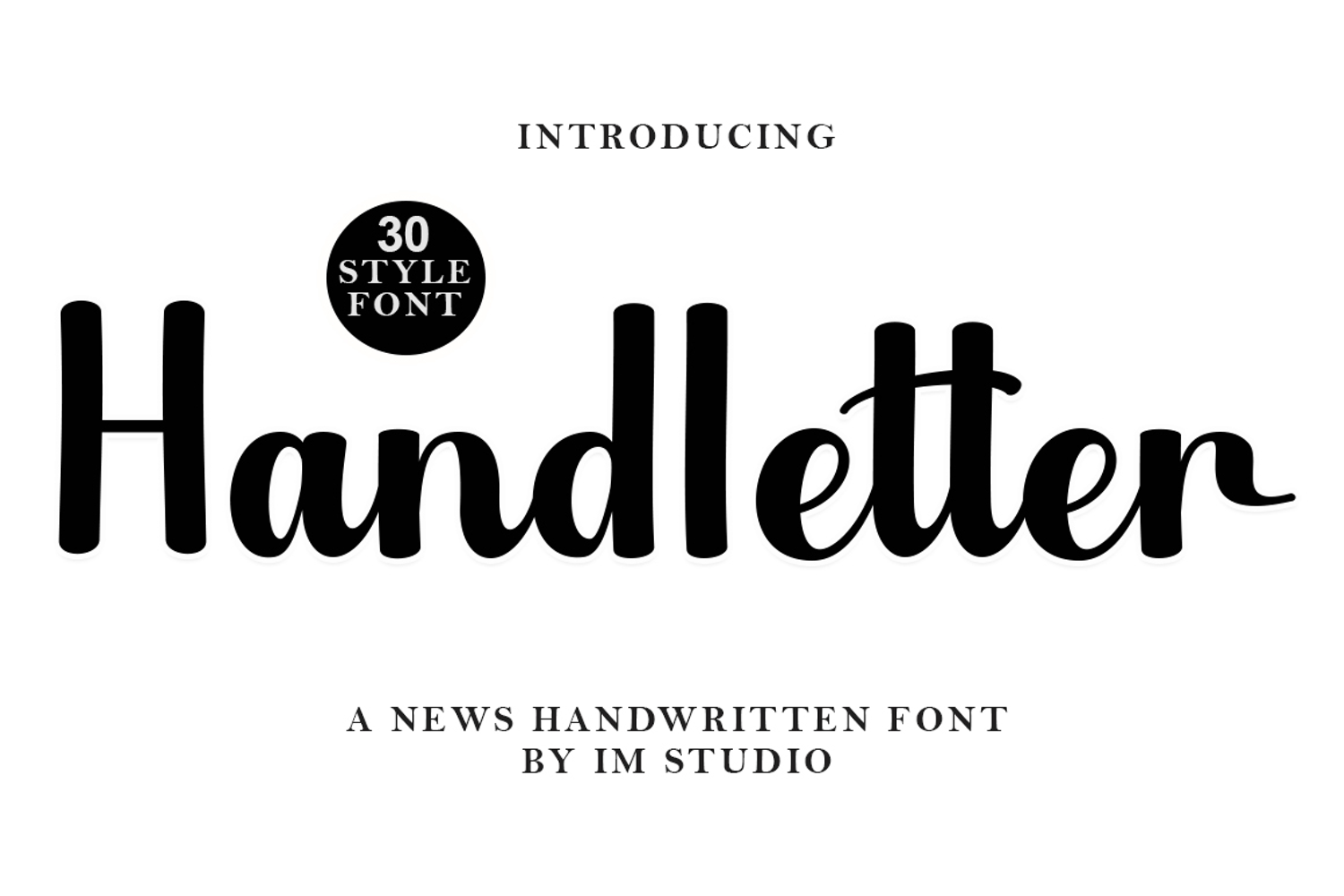
Handletter - Family In 30 Styles
Handletter appeals because it is sleek, clean, feminine, sensual, glamorous, simple, and very easy to read, thanks to the many beautiful letter connections. I also offer a number of decent style alternatives for some of the letters. The classic style is perfect for use in various formal forms such as invitations, labels, restaurant menus, logos, fashion, makeup, stationery, novels, magazines, books, greeting/wedding cards, packaging, labels, or any type of advertising purpose. ...
-Has 30 New Typefaces.
-Regular, Italic, Bold, Bold Italic, Outline, Warp, Expanded, Condensed, Smooth, Smart Corner, Add Nodes, Blur.